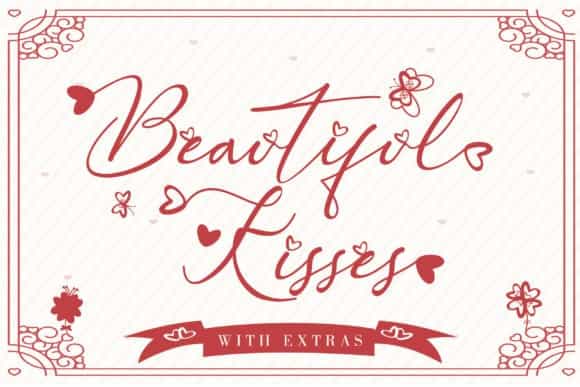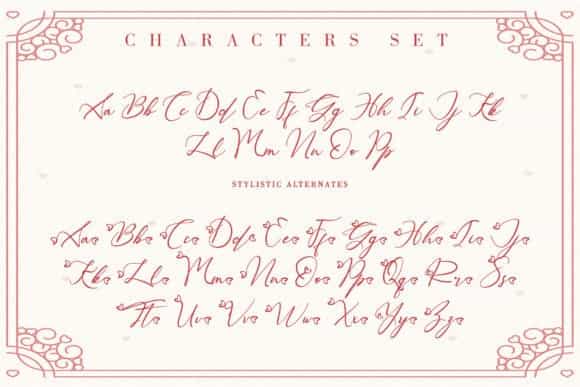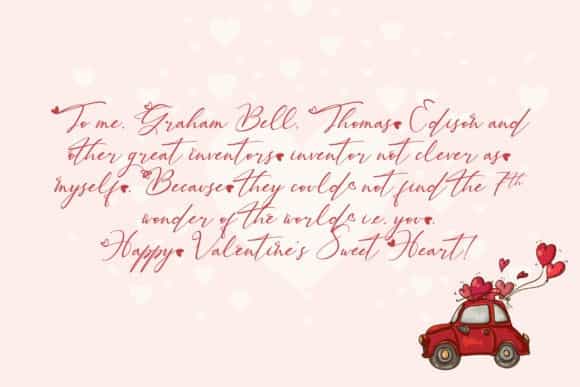
Introducing Beautiful Kisses Font. The script is brilliant and the right typeface to say I love you. There is always sense in finding happiness in love. Its style is stunningly beautiful and graceful.